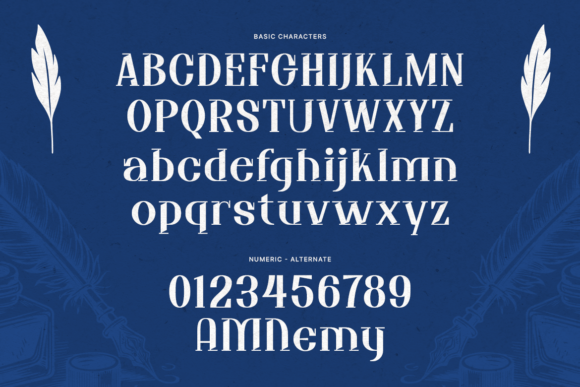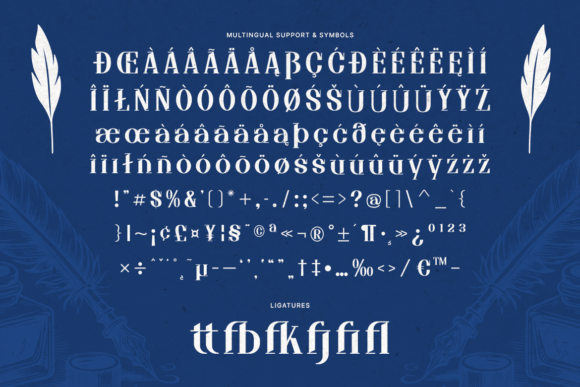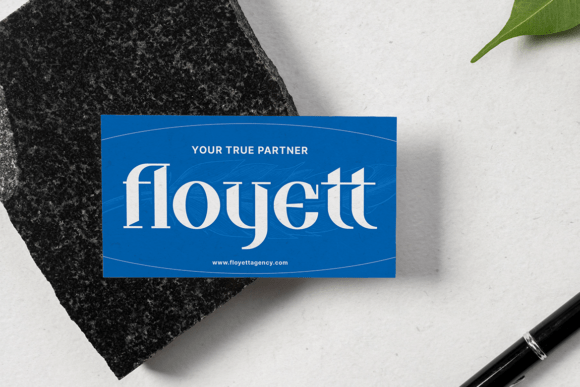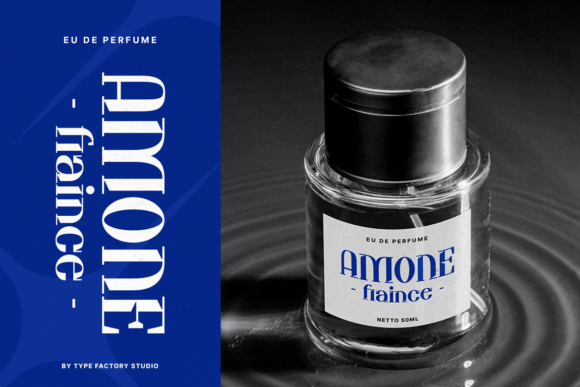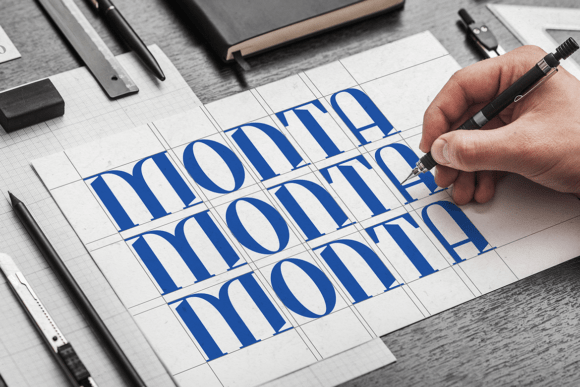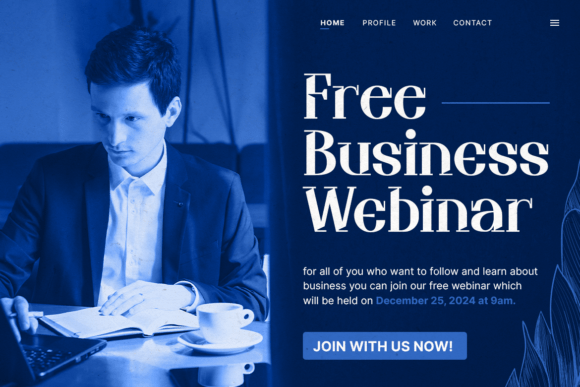
Introducing Enders Font: Elevate Your Designs with Modern Serif Elegance
In the world of typography, the right font can make all the difference in elevating your design from ordinary to extraordinary. For designers and crafters seeking a modern serif typeface that exudes confidence and sophistication, look no further than Enders Font. This stunning typeface boasts distinctive ink trap details that not only enhance clarity and visual character but also add a touch of personality to your designs.
The Unique Features of Enders Font
Enders Font is characterized by its structured proportions and refined appearance, making it an ideal choice for a wide range of design applications. The ink trap elements, a hallmark of this typeface, serve a dual purpose: they add a subtle yet distinctive personality to your text while significantly improving readability in both print and digital environments. This makes Enders incredibly versatile, suitable for use in branding, editorial layouts, packaging, and professional design projects that demand a high level of typographic excellence.
Applications of Enders Font
Enders Font’s adaptability and aesthetic appeal make it perfect for various design projects. Here are some of the key areas where Enders truly shines:
- Branding: Create a lasting impression with logos and corporate identities that require a serif typeface with a modern twist. Enders helps brands stand out with its unique ink trap details and confident appearance.
- Editorial Layouts: Enhance the readability and visual appeal of your publications. Whether it’s a magazine, newspaper, or blog, Enders brings a level of sophistication that engages readers.
- Packaging: Make your product packaging memorable with Enders. Its distinctive style ensures that your product stands out on shelves and in digital stores.
- Professional Design Applications: From corporate reports to advertising materials, Enders provides a professional look that elevates the perceived value of your work.
Why Choose Enders Font?
Choosing Enders Font for your typography needs comes with several advantages:
- Enhanced Readability: The ink trap details not only add aesthetic value but also improve how easily readers can consume your content.
- Versatility: Enders works exceptionally well for logos, headlines, and body text, making it a convenient choice for comprehensive design projects.
- Modern Appeal: Its contemporary design ensures that your work feels current and engaging.
- Professionalism: The refined and structured appearance of Enders lends a professional edge to any project.
Tips for Using Enders Font Effectively
To maximize the impact of Enders Font in your designs, consider the following tips:
- Pair with Complementary Fonts: While Enders is versatile, pairing it with sans-serif fonts can create a striking contrast that highlights key information.
- Adjust Line Spacing: For optimal readability, ensure sufficient line spacing, especially in body text.
- Utilize Font Weights: Experiment with different weights of Enders to establish a visual hierarchy in your design.
Enders Font is a powerful tool for designers and crafters looking to infuse their projects with a modern serif typeface that offers both style and substance. Its unique ink trap details, combined with its structured proportions and refined appearance, make it an excellent choice for a wide range of applications. Whether you’re working on branding, editorial layouts, packaging, or professional design projects, Enders provides the perfect blend of elegance, readability, and personality. Elevate your designs with Enders Font and discover the difference that high-quality typography can make.